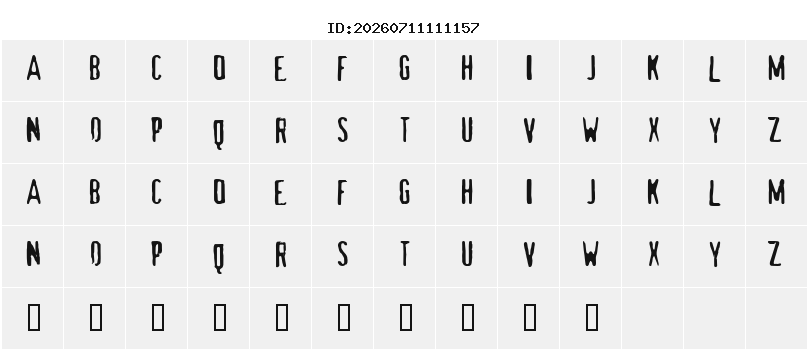
maldita Preview
• Font Name: maldita
• Full Font Name: maldita
About maldita.ttf
maldita.ttf is a modern, elegant sans-serif font designed for ultimate readability and visual harmony. Perfect for branding, headlines, web design, and print materials.